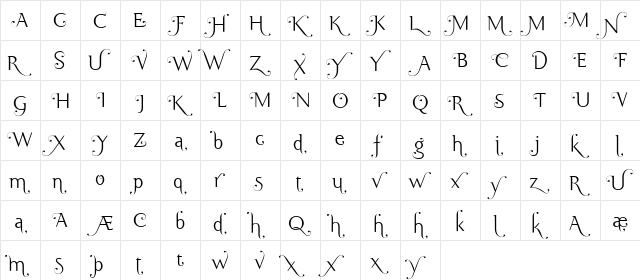
Ela Swashes XeLight Regular
Design Context for Ela Swashes XeLight Typeface
Ela Swashes XeLight flows with the natural rhythm of handwritten lettering, making it ideal for designs that call for warmth and personal expression. The delicate stroke weight brings airiness and refinement to layouts.
Font Pairing: Combine Ela Swashes XeLight with a simple geometric sans for maximum contrast — the tension between flowing curves and clean structure is a classic typographic pairing.
Pro Tip: Use Ela Swashes XeLight for short runs of text — names, titles, or taglines. Extended body copy in script faces tires the eye quickly.